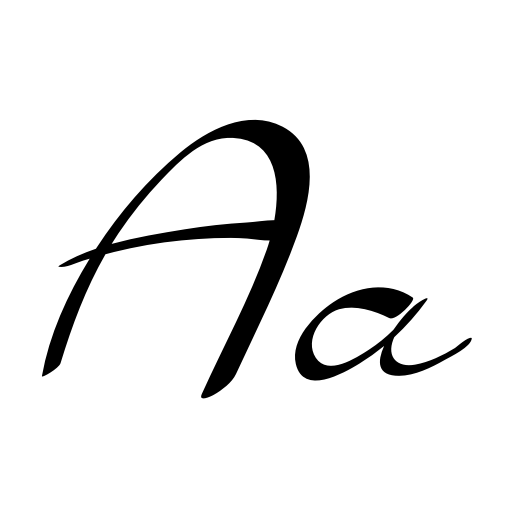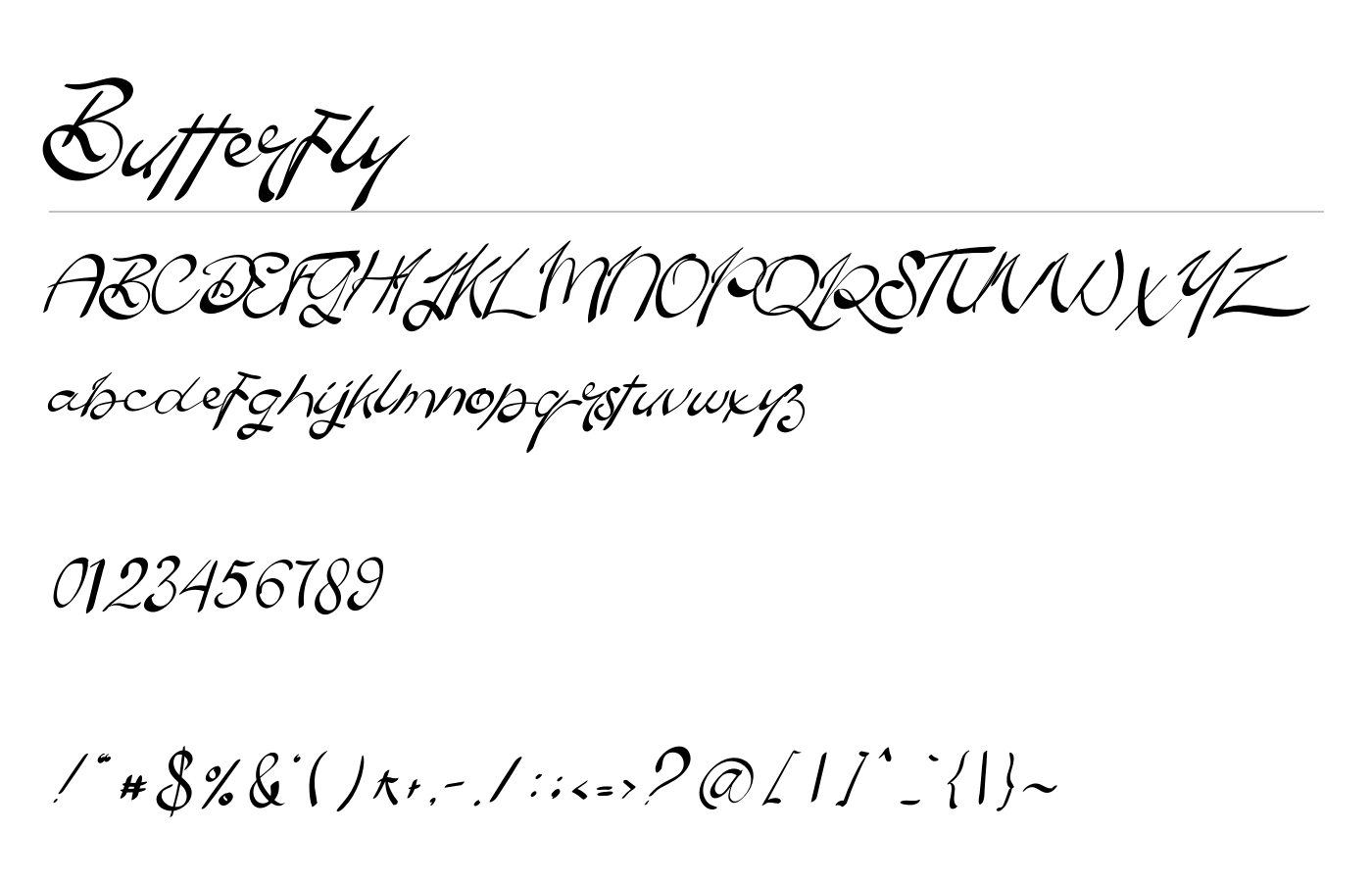
Butterfly Font is a delicate and elegant script typeface with a distinctly calligraphic style, featuring fluid, flowing strokes and a slightly whimsical charm. Its fine contrast between thick and thin lines combined with graceful swashes and unique letterforms makes it ideal for decorative projects, wedding invitations, and luxury branding that seeks a sophisticated yet artistic touch. This font works best in large-scale display uses where its intricate details can shine, bringing a refined and personal feel to designs.
Butterfly Font
About Butterfly Font
| Font family | Butterfly Font |
| Designer | Nur Edi Prayitno |